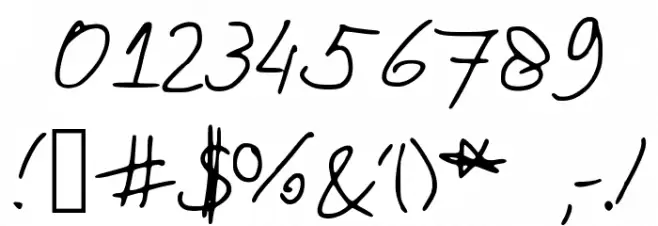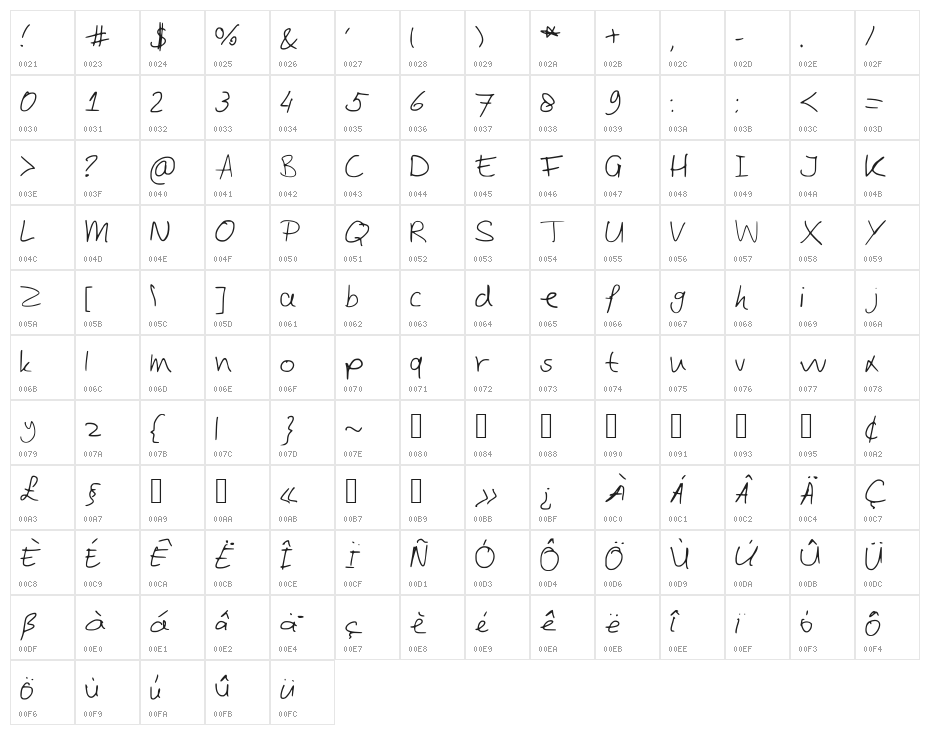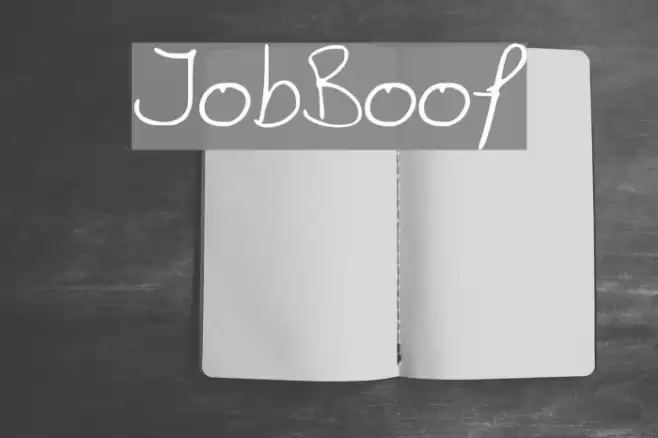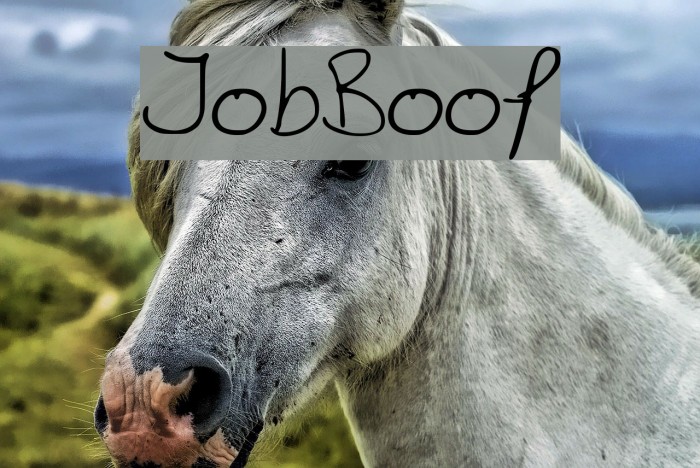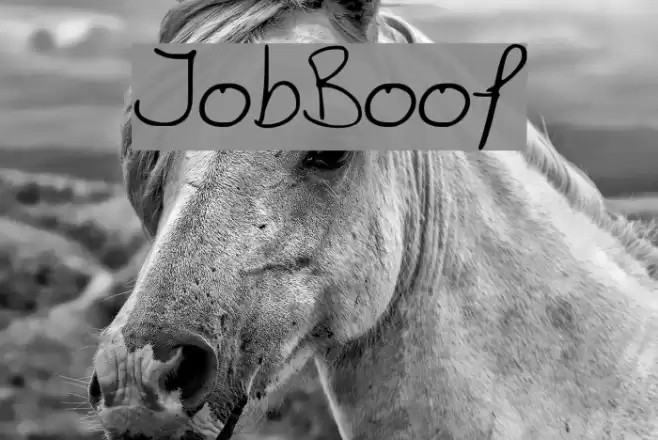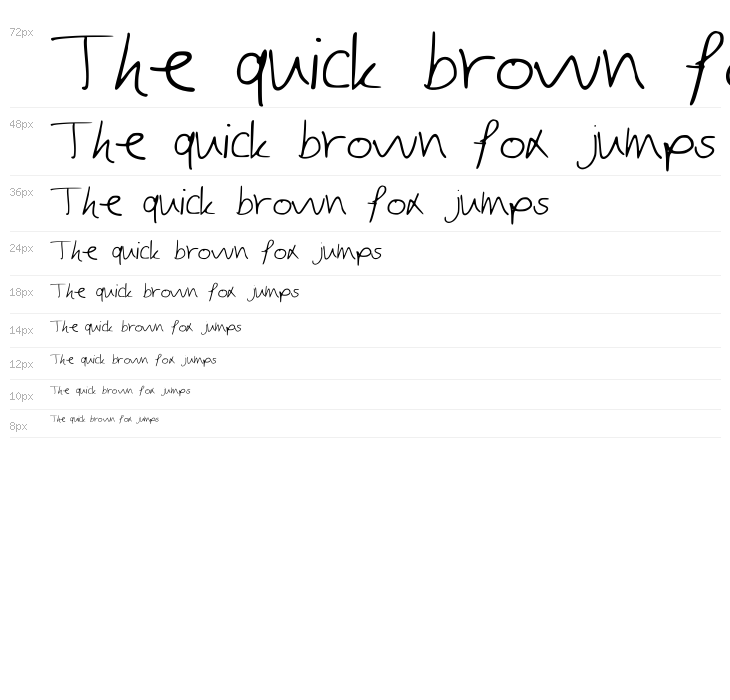
JobBoof Font
JobBoof Description
This font features a playful, handwritten style that exudes a casual and informal vibe. The letters are slightly irregular, mimicking the natural flow of handwriting, which adds a personal touch to any text. The uppercase letters maintain a consistent height, while the lowercase letters vary slightly, enhancing the organic feel. The numerals are clear and legible, maintaining the same playful style. Special characters are included, each with a unique flair that complements the overall design. This font is perfect for projects that require a friendly and approachable aesthetic.
| Proposed Projects | Ideal for greeting cards, personal blogs, children's books, and informal branding. |